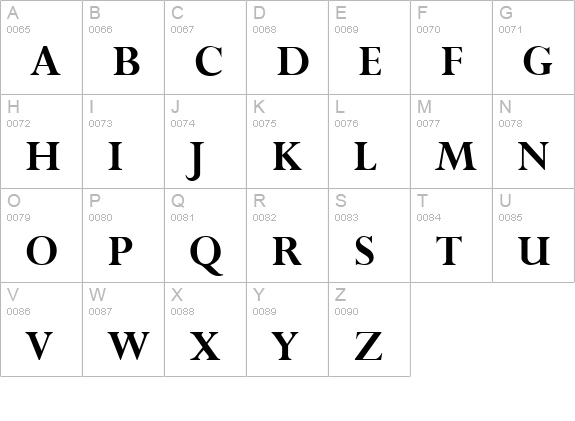
Purloin Bold is a strong, high-contrast variant in the Purloin typeface family \xE2\x80\x94 well suited to headlines, attention-grabbing titles, and strong calls-to-action.
Purloin Bold font is a striking and modern typeface designed to make a bold statement in any design project. With its clean lines and stylish curves, Purloin Bold exudes confidence and sophistication. This versatile font is perfect for logos, headlines, posters, and more. The best part? Purloin Bold is available for free download at FontsMarket.com. Now you can elevate your designs with this eye-catching font without breaking the bank. Don't miss out on the opportunity to add Purloin Bold to your font collection and make your creations stand out from the crowd. Download now and unleash your creativity with Purloin Bold!